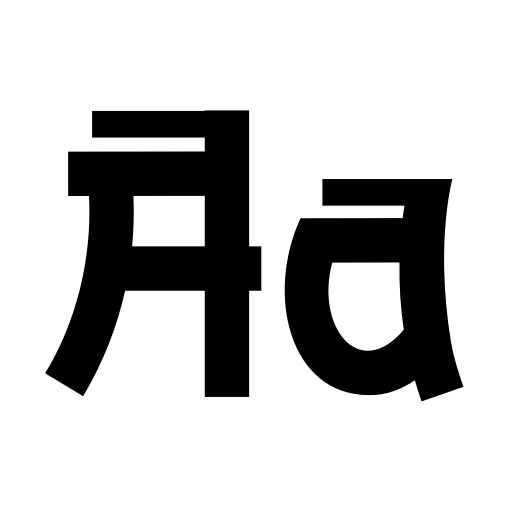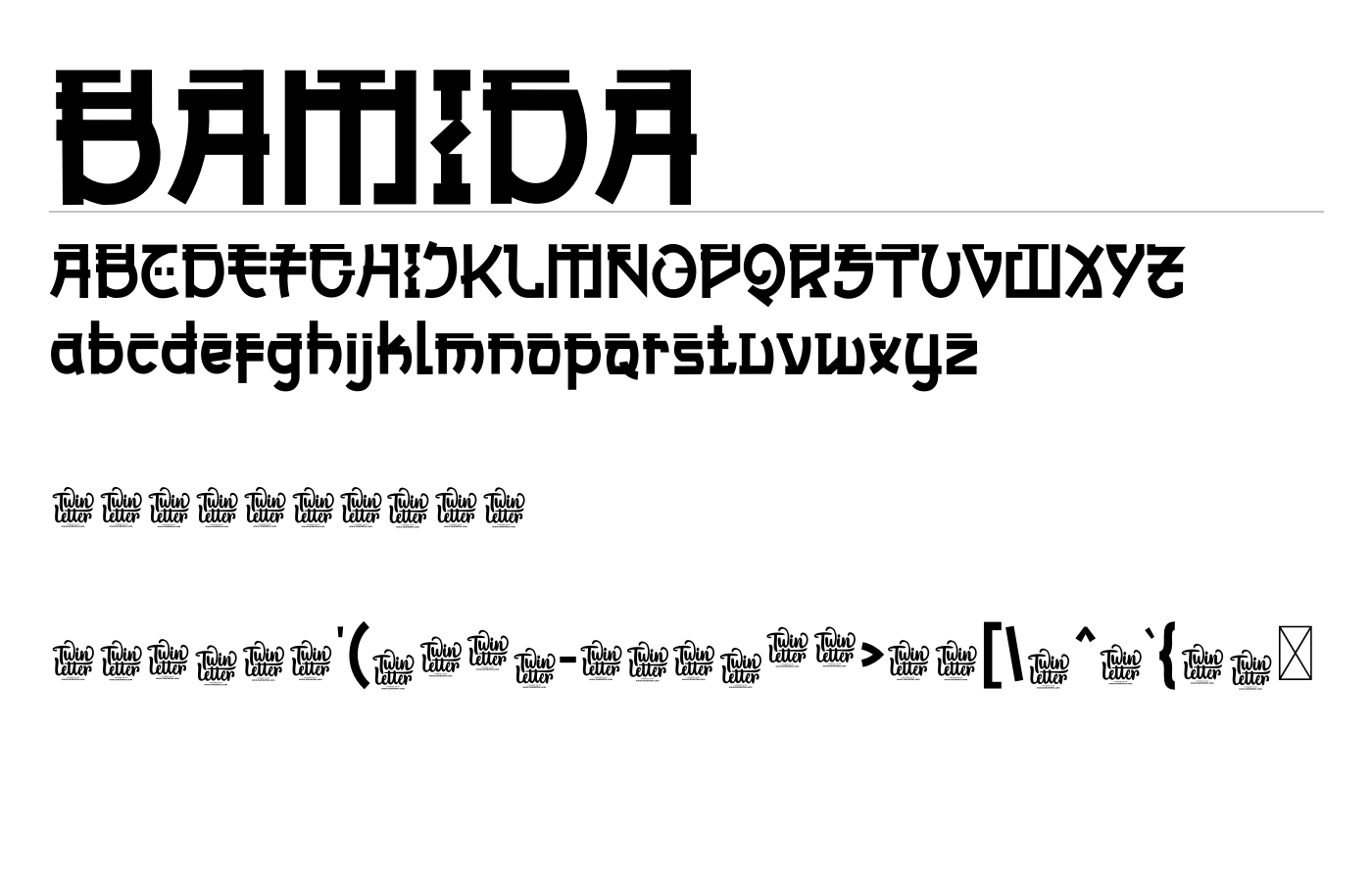
BAMIDA is a bold, geometric sans serif font with strong, blocky letterforms that convey a modern and edgy vibe. Its narrow width and sharp angles give it a compact, tech-inspired appearance, making it ideal for futuristic branding, posters, and headlines that seek a distinctive, impactful look. This font stands out in creative projects where a bold, unconventional style is desired to grab attention quickly.
BAMIDA Font
About BAMIDA Font
| Font family | BAMIDA Font |
| Designer | Murozakul Akhsan |